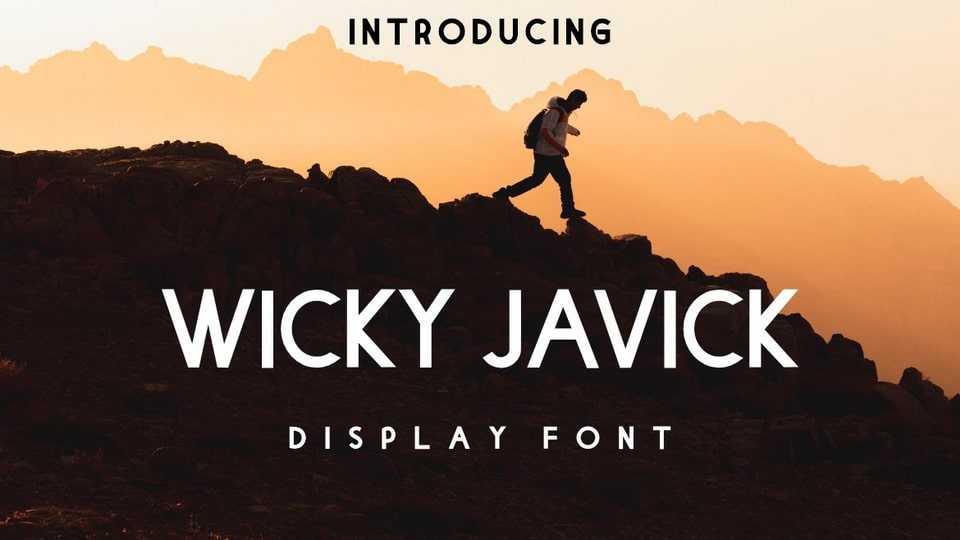
Download Wicky Javick font, a geometric sans serif typeface, inspired by a modern typography, perfect to use as flyers, quotes, posters, banners, packaging, merchandise, logotypes and much more.
Designer: Typersid Studio